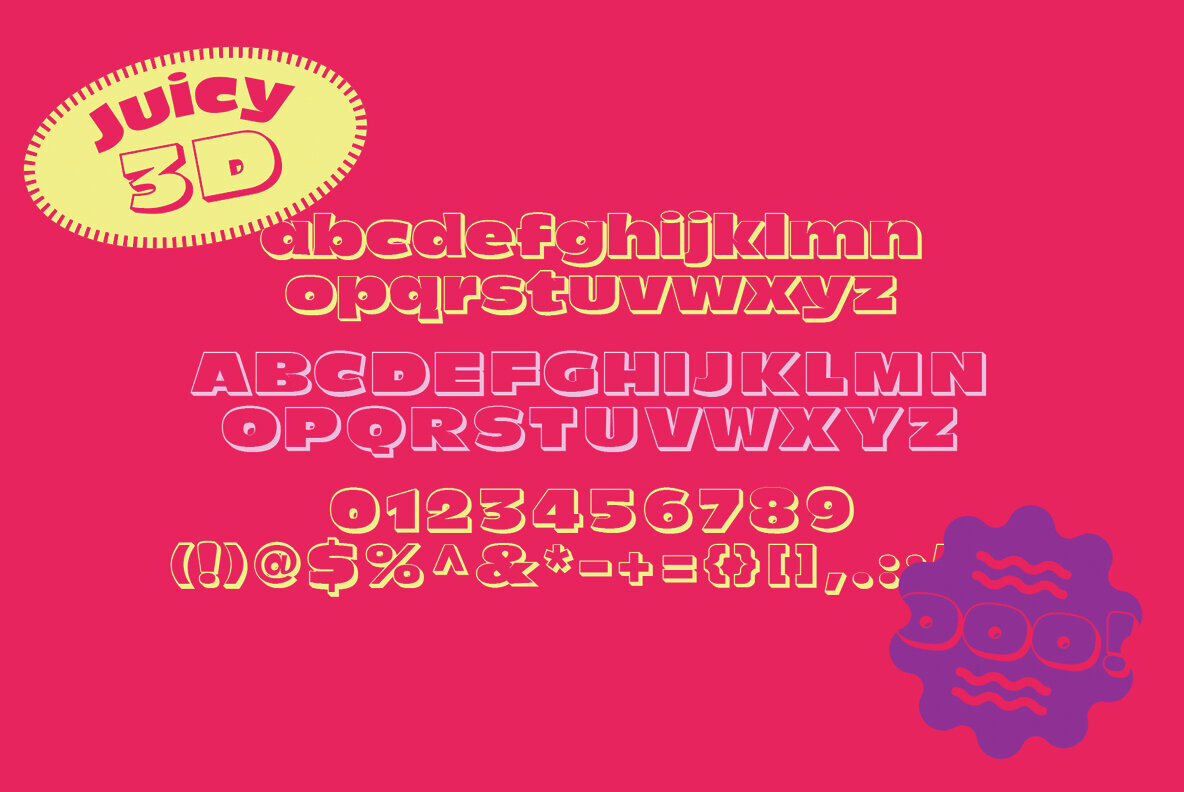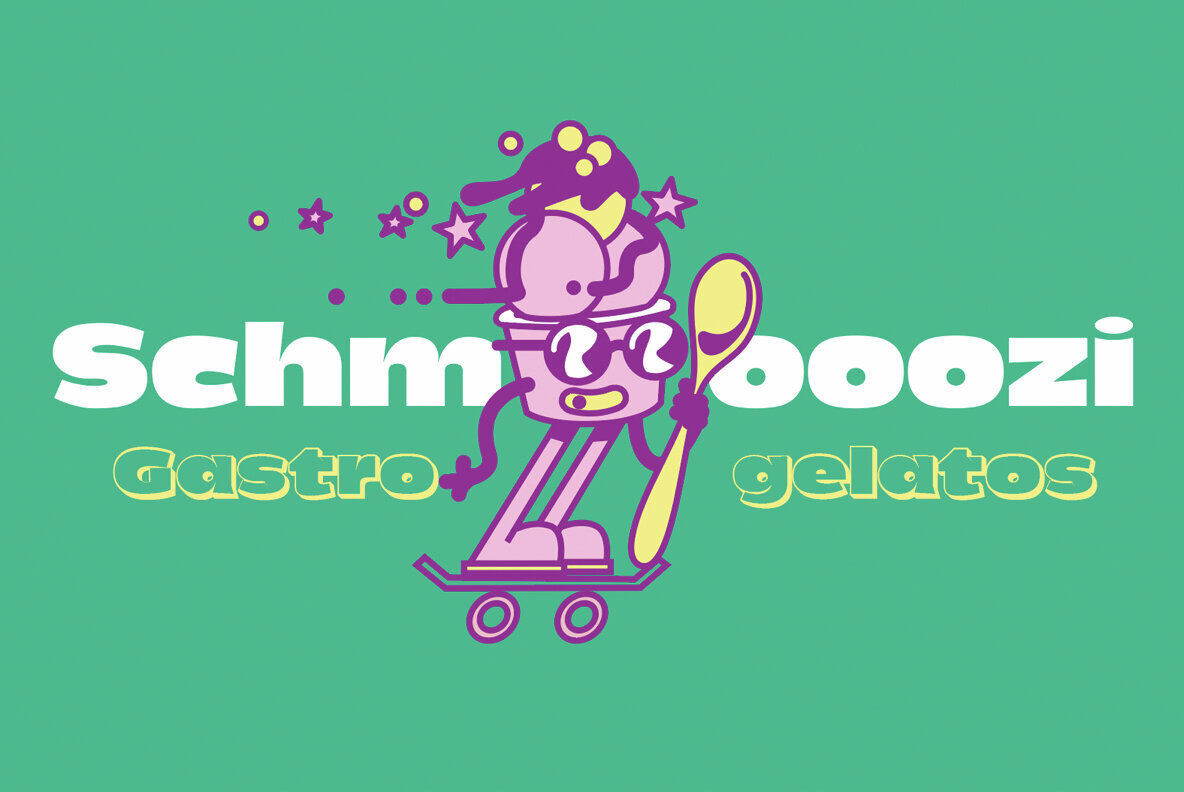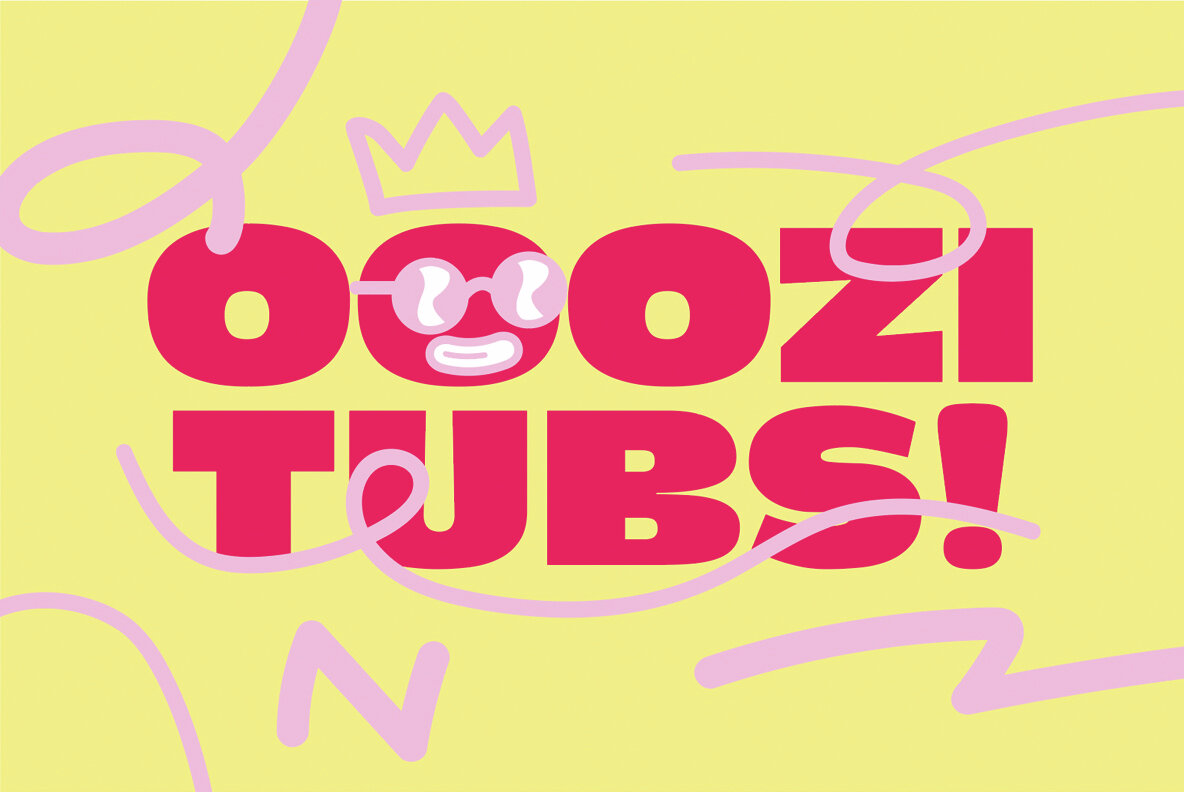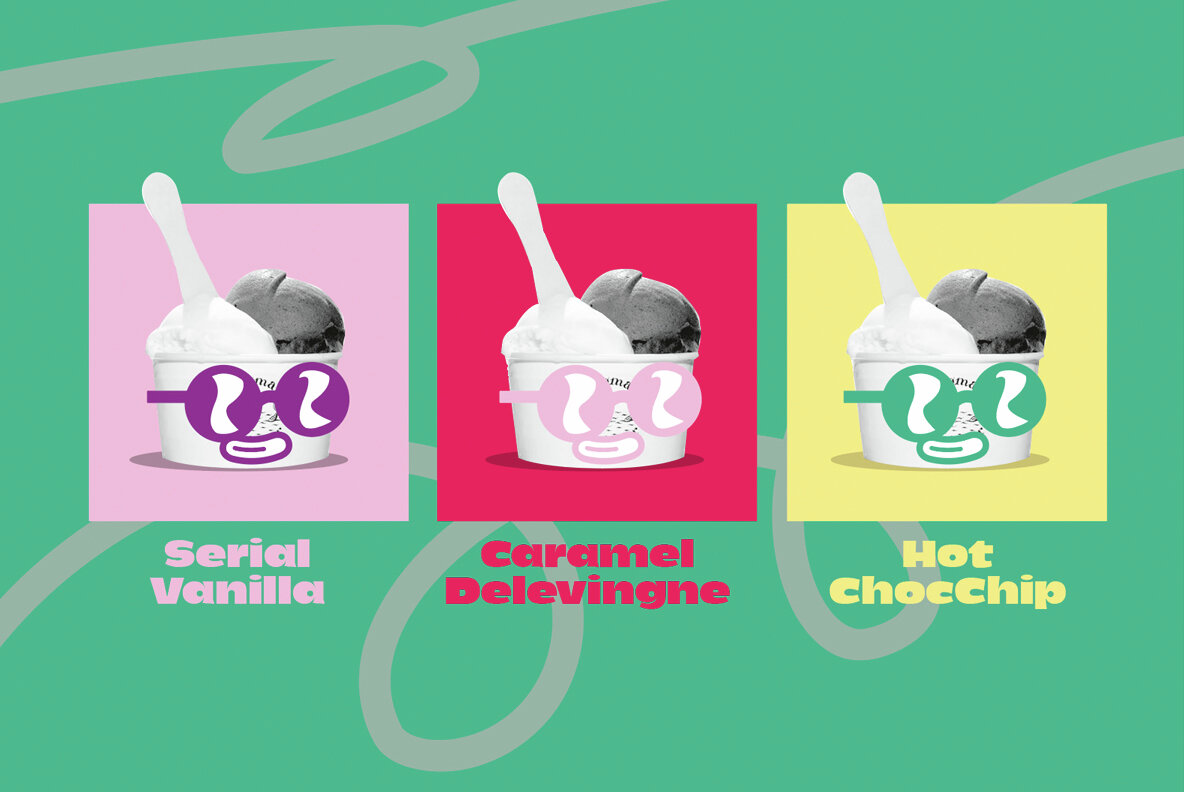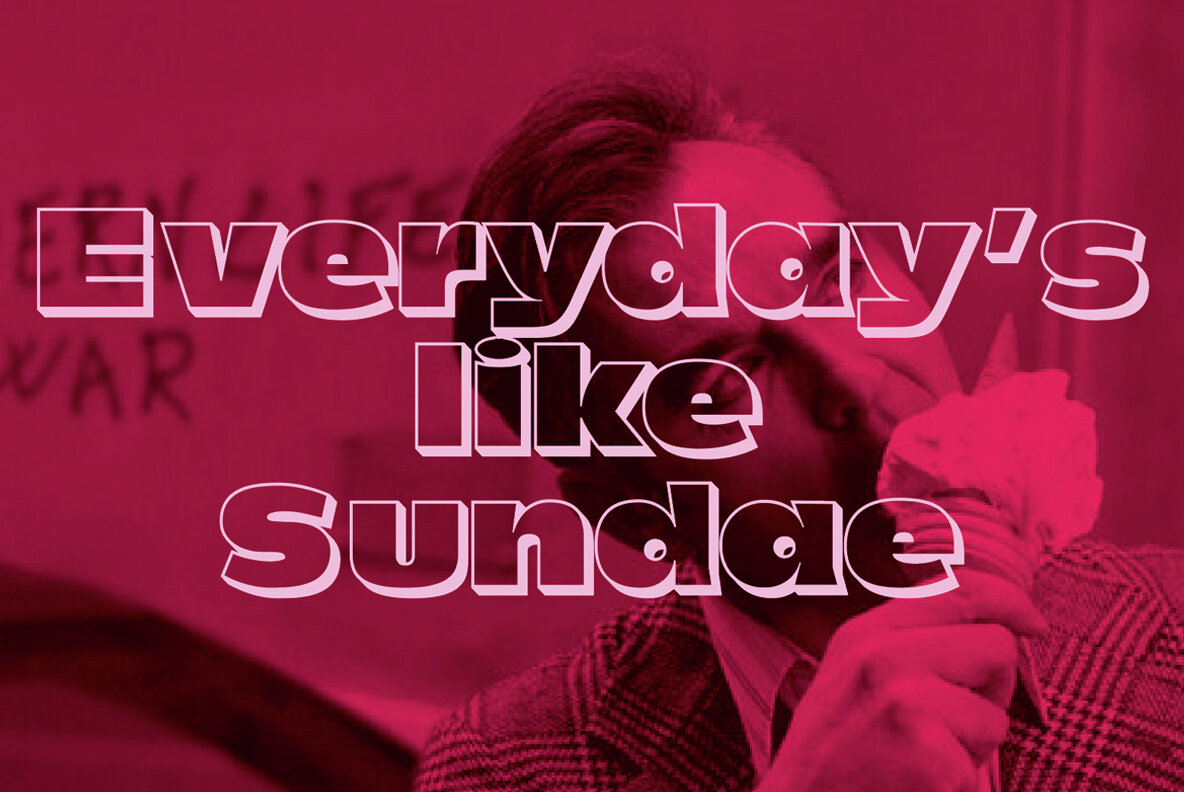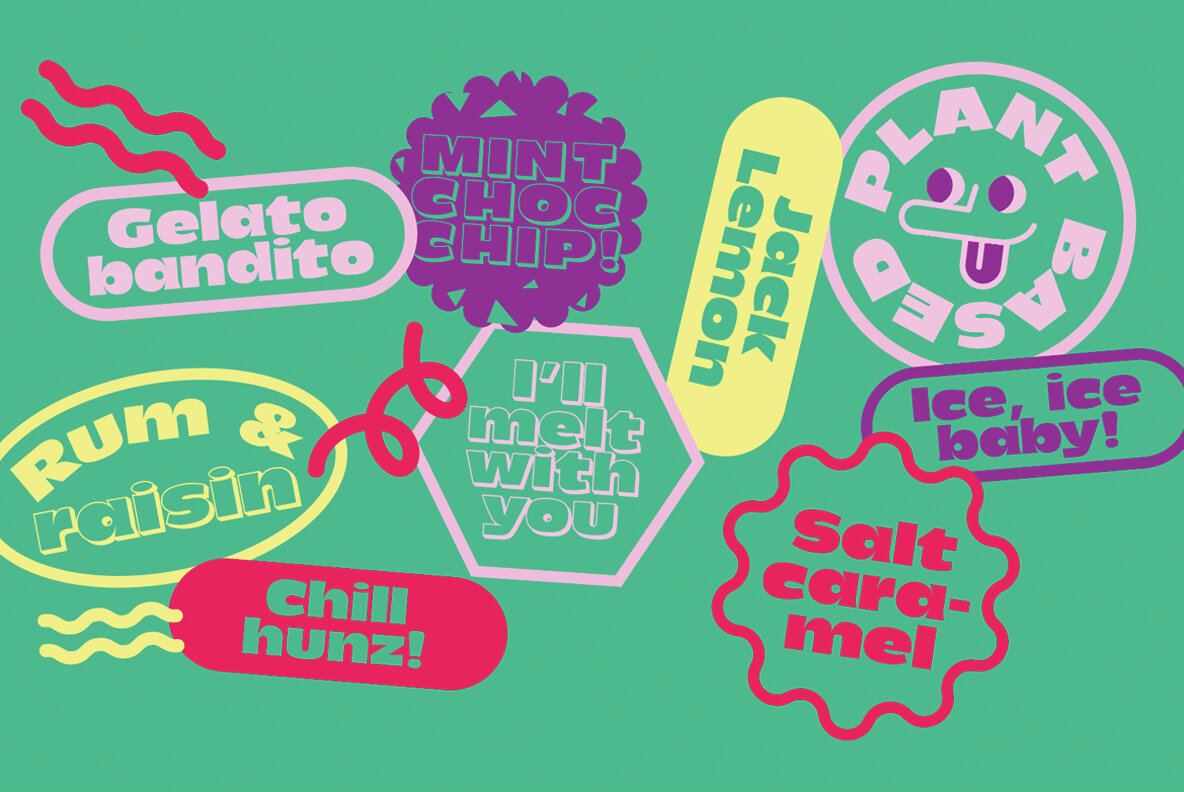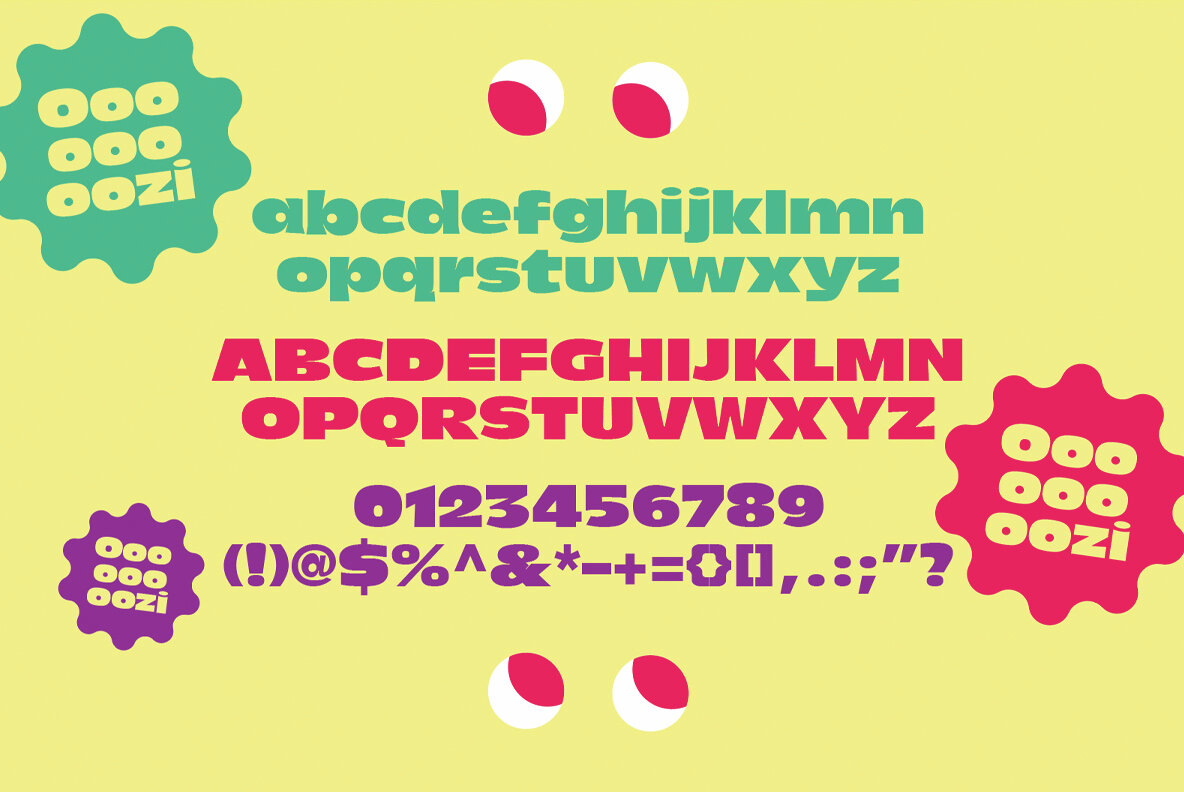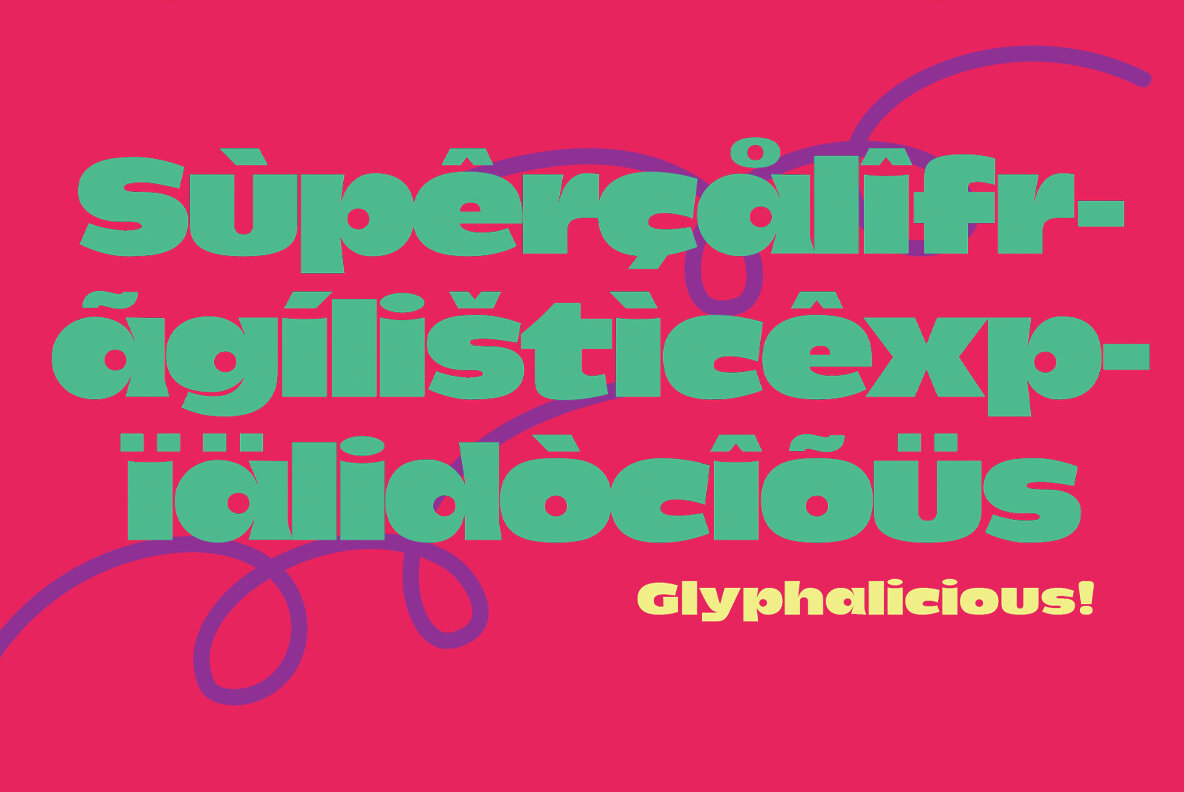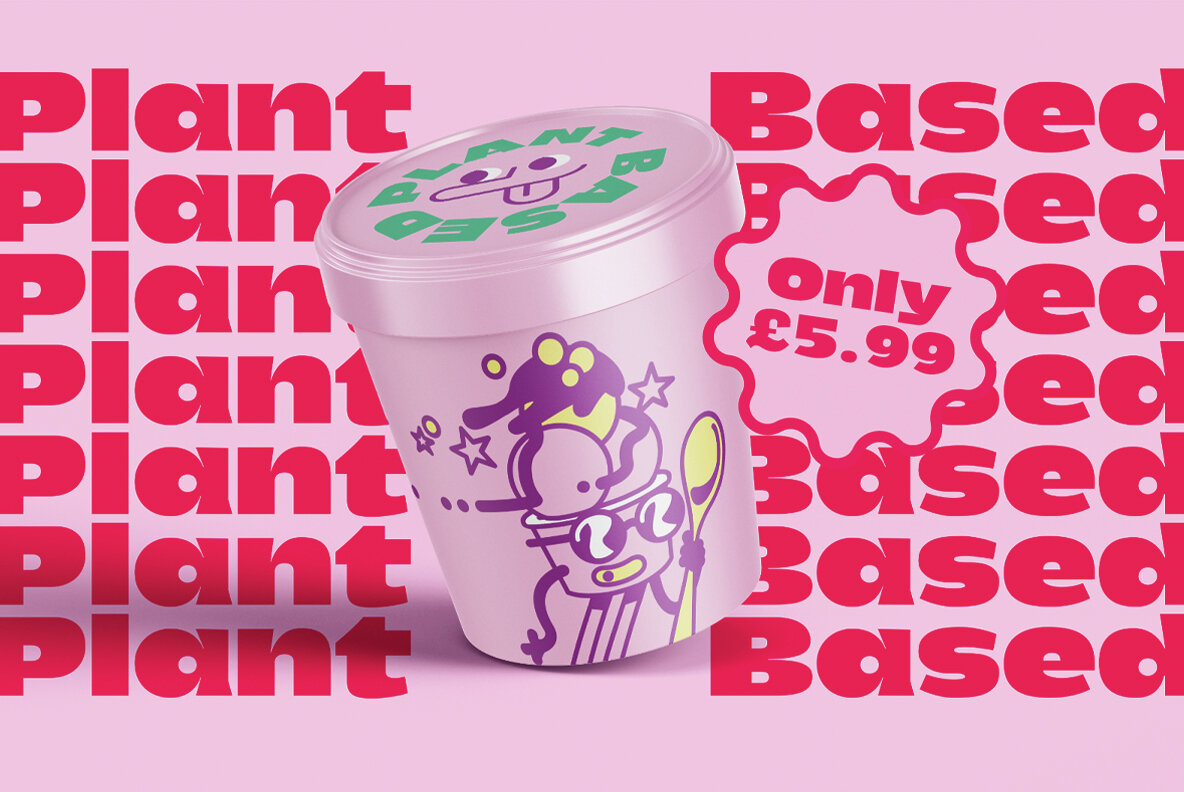
Ooozi Font
Ooozi Black
Ooozi Black 3D
Ooozi is a super fun bold new sans serif font with a 3d version. Get schmooozin with it's heavy curves and bumpy lines. Perfect for your new branding project, festival poster or social post, it ooozes class!